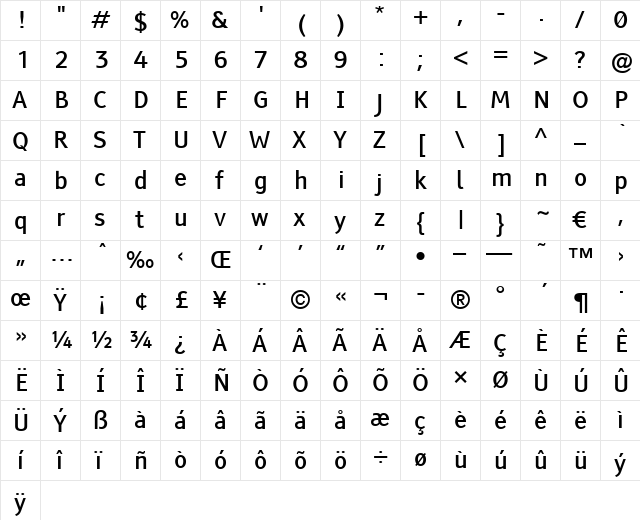
Tiresias PCfont Z Regular Font Preview
Tiresias PCfont Z Regular
Tiresias PCfont Z Regular Font Details
| Designer | Laker Sharville |
Design Context for Tiresias PCfont Z Typeface
Tiresias PCfont Z is a composed and adaptable typeface that performs quietly and consistently across a wide range of design contexts.